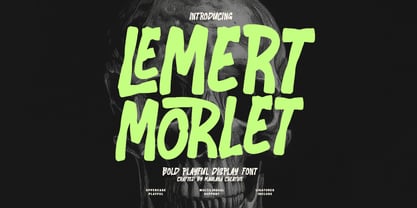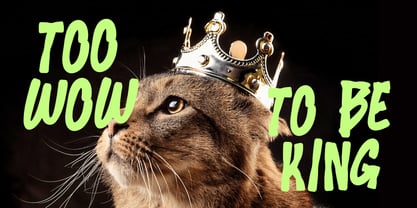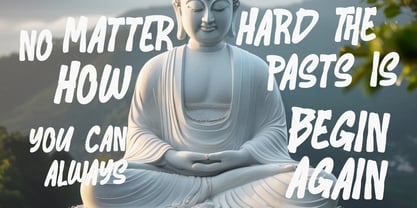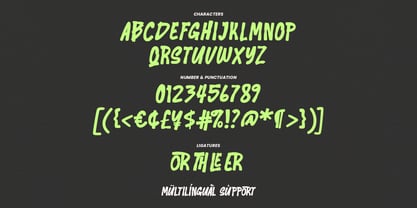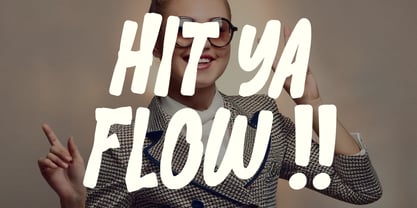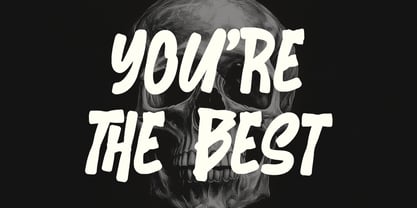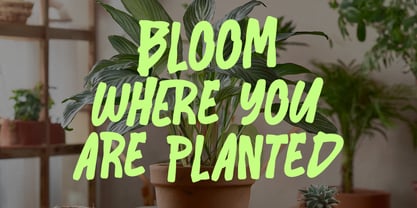
MC Lemert Morlet
by Maulana Creative
The MC Lemert Morlet Font Family was designed by Gilang Maulana and published by Maulana Creative. MC Lemert Morlet contains 1 styles. More about this family
Lemert Morlet is a striking display font that combines bold, hand-drawn aesthetics with a vibrant, energetic personality. Characterized by its thick strokes and irregular, organic shapes, this typeface exudes a sense of spontaneous creativity and fun. It features a full set of uppercase characters, numerals, and extensive punctuation, along with unique ligatures that enhance its fluid, custom feel. Designed for high-impact visual communication, Lemert Morlet is ideal for headings, social media graphics, posters, and any project requiring a distinct, lively typographic voice. Its multilingual support ensures versatility across various global design applications.
Designers: Gilang Maulana
Foundry: Maulana Creative